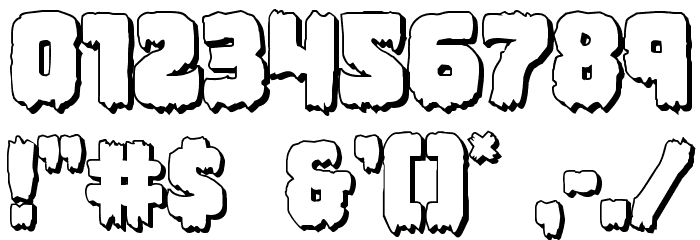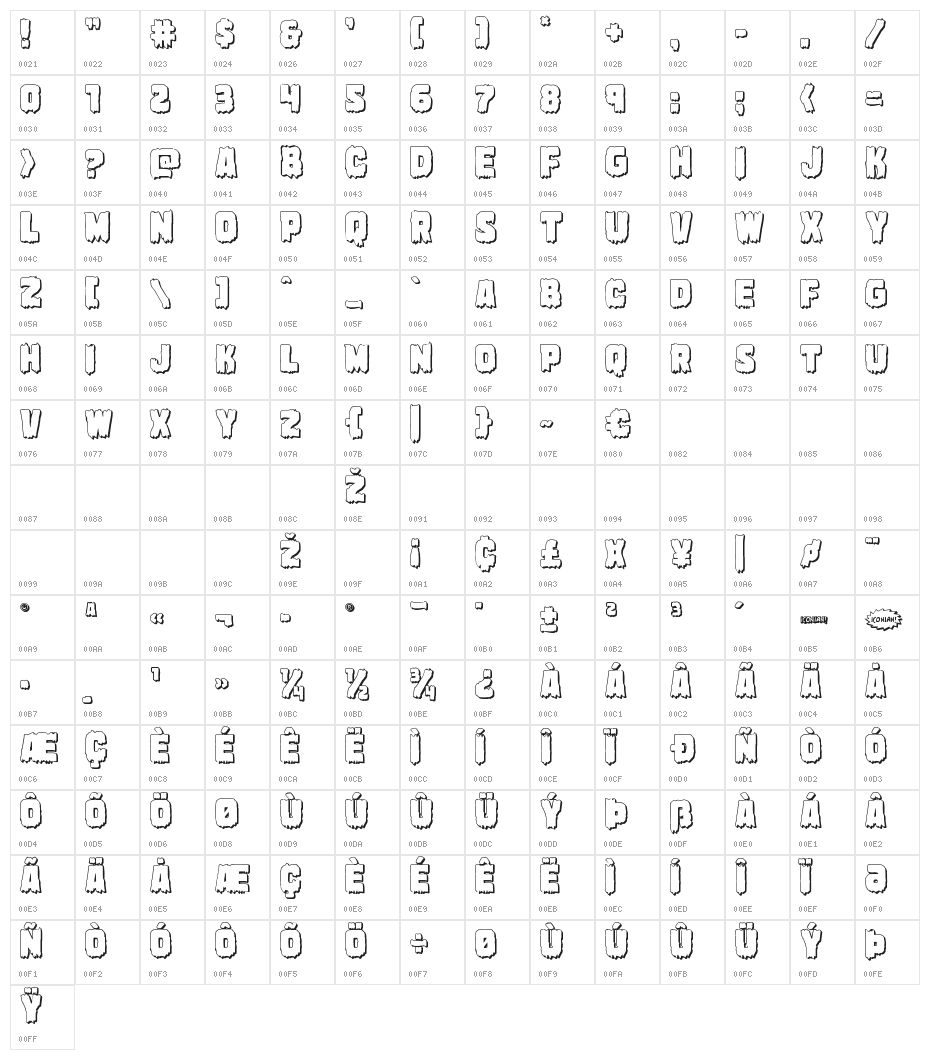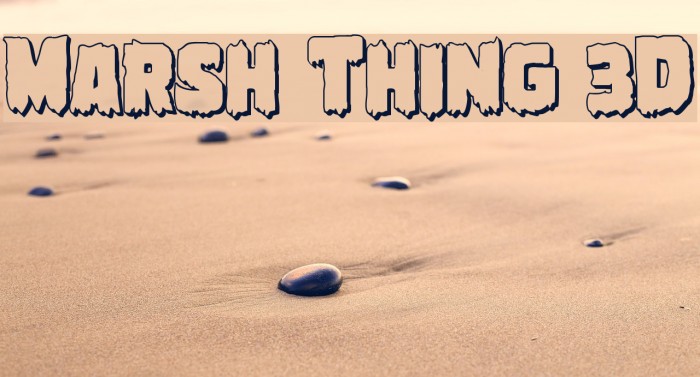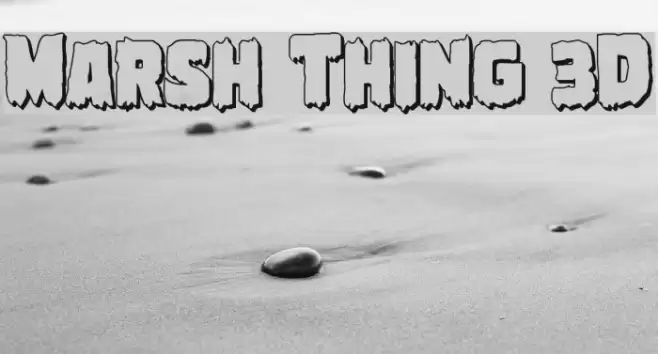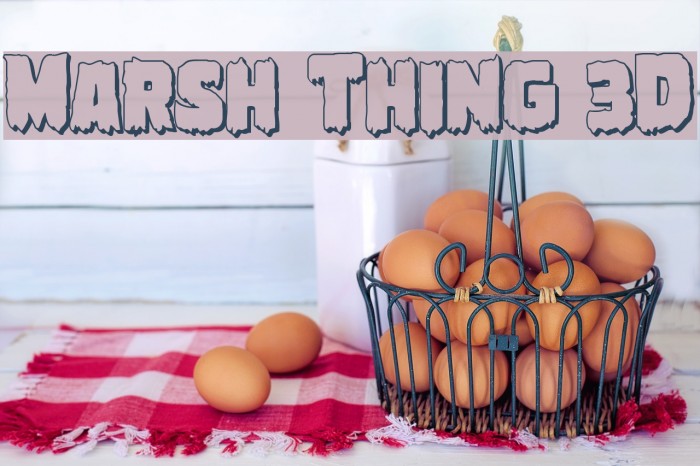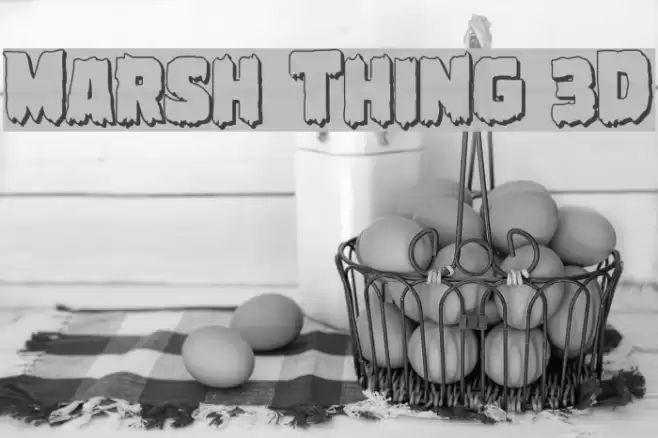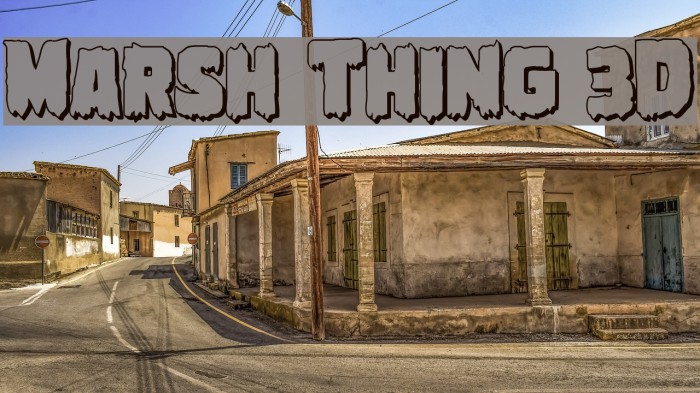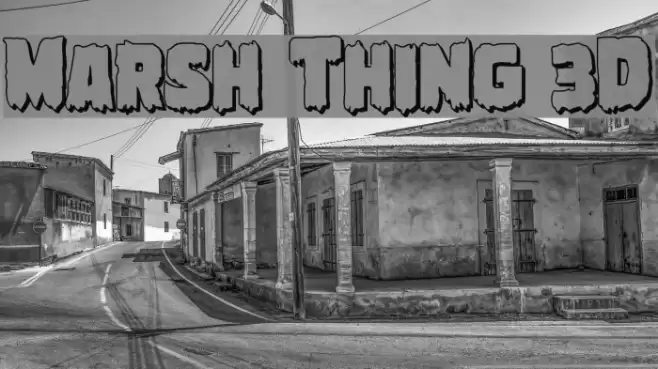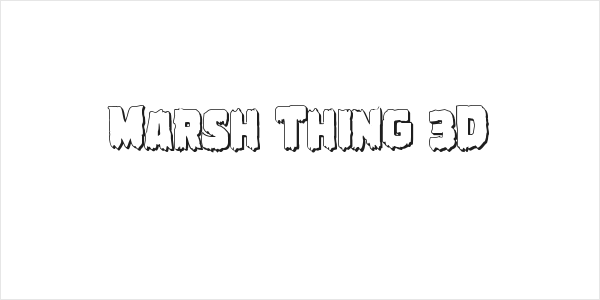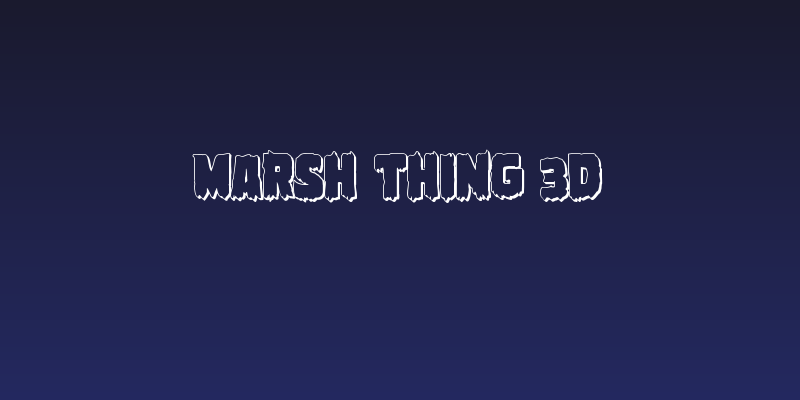
Marsh Thing 3D Font
Marsh Thing 3D Description
This font features a bold, playful design with a three-dimensional effect that gives each character a unique, marshmallow-like appearance. The letters are thick and rounded, with a slightly uneven outline that adds to the whimsical and fun aesthetic. The font is highly decorative, making it ideal for eye-catching designs. The characters are well-spaced, ensuring readability while maintaining a cohesive look. This font is perfect for projects that require a touch of humor and creativity, such as children's book covers, party invitations, or playful branding materials.
| Proposed Projects | Ideal for children's books, party invitations, and playful branding. |